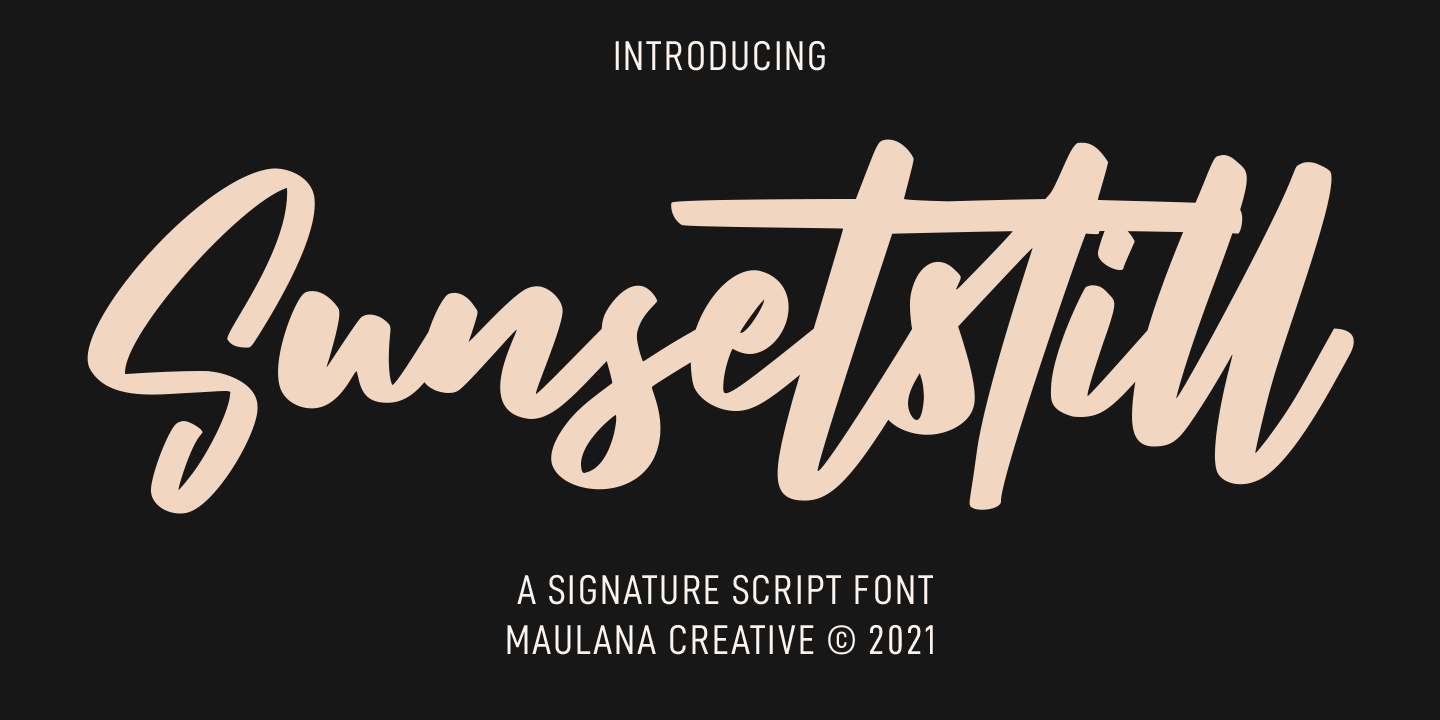
Sunsetstill Font is perfect for meditation retreat branding, peaceful wellness center communications, sunset photography studio signage, tranquil spa resort marketing, mindfulness app interfaces, serene yoga studio materials, contemplative art gallery promotions, and calming lifestyle brand campaigns. This serene typeface excels in applications where peaceful tranquility, sunset serenity, and meditative stillness are essential for connecting with audiences who seek moments of calm and appreciate the therapeutic beauty of golden hour contemplation.
What makes Sunsetstill Font so exciting is its gentle embodiment of sunset tranquility and meditative stillness that perfectly captures the essence of peaceful golden hours and the profound calm found in quiet contemplation. The font features soft, flowing letterforms with serene characteristics that evoke gentle sunset light and peaceful meditation moments. Its tranquil character conveys serenity, mindfulness, and inner peace - essential qualities for brands serving wellness communities, meditation practitioners, and audiences who appreciate mindful living, peaceful environments, and the transformative power of quiet moments spent in contemplative stillness during nature's most beautiful transitions.
The Sunsetstill Font family includes multiple peaceful weights and meditation-inspired variations that enhance its tranquil appeal. Some versions feature subtle gradient effects that simulate soft sunset lighting and gentle transitions, while others provide ultra-clean variants that maintain the font's serene character with optimal readability for professional wellness applications and commercial mindfulness communications.
Whether you're creating branding for wellness services, designing materials for meditation centers, or developing marketing campaigns for peaceful lifestyle experiences, Sunsetstill Font Free Download provides the authentic tranquility your project requires. The font's serene character makes it particularly effective for brands targeting mindfulness seekers and audiences who appreciate peaceful living, sunset beauty, and the restorative power of meditative stillness.
Find peaceful stillness with Sunsetstill Font and calm your brand communications with typography that celebrates the serene beauty of sunset meditation and tranquil contemplation.